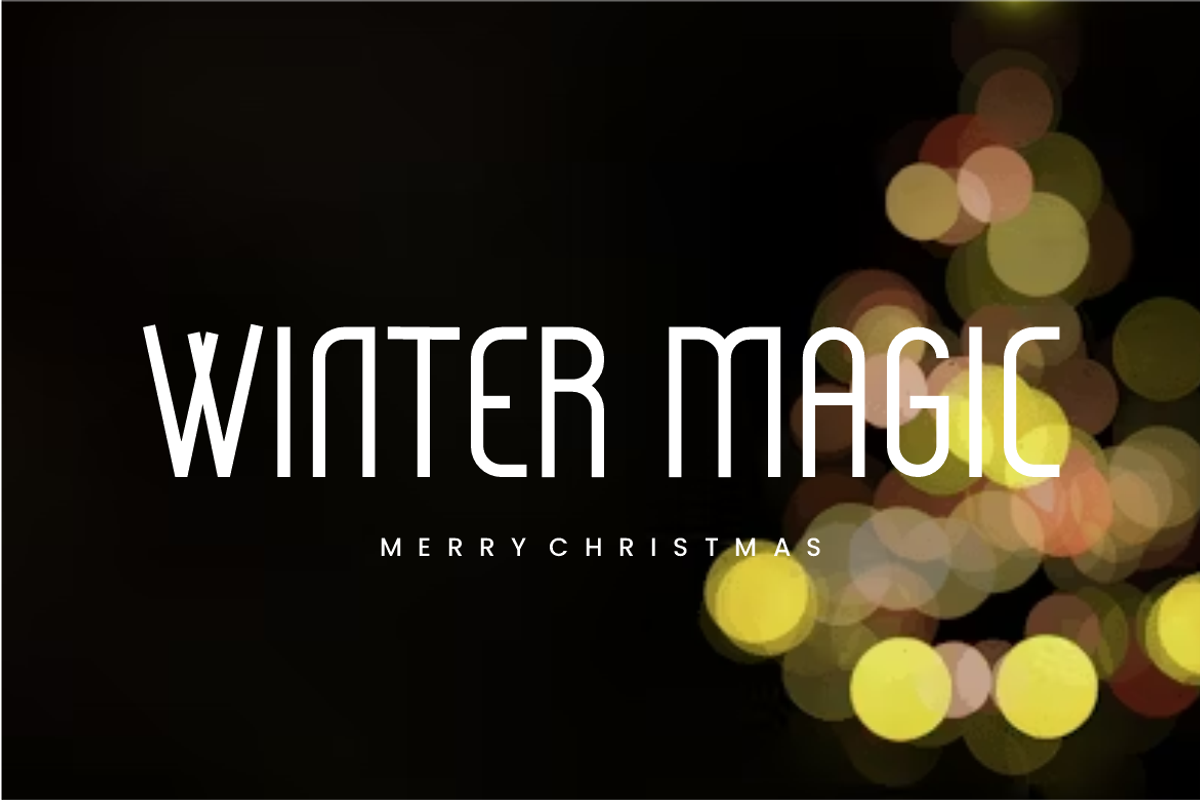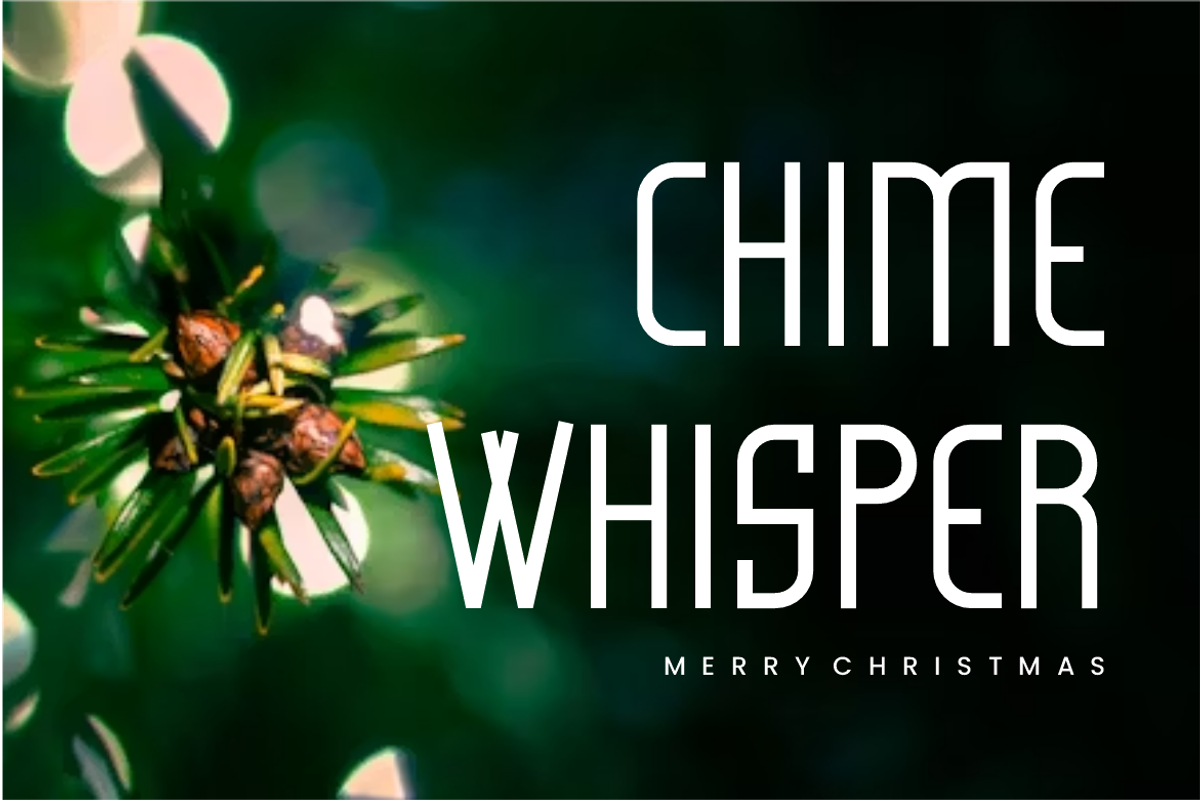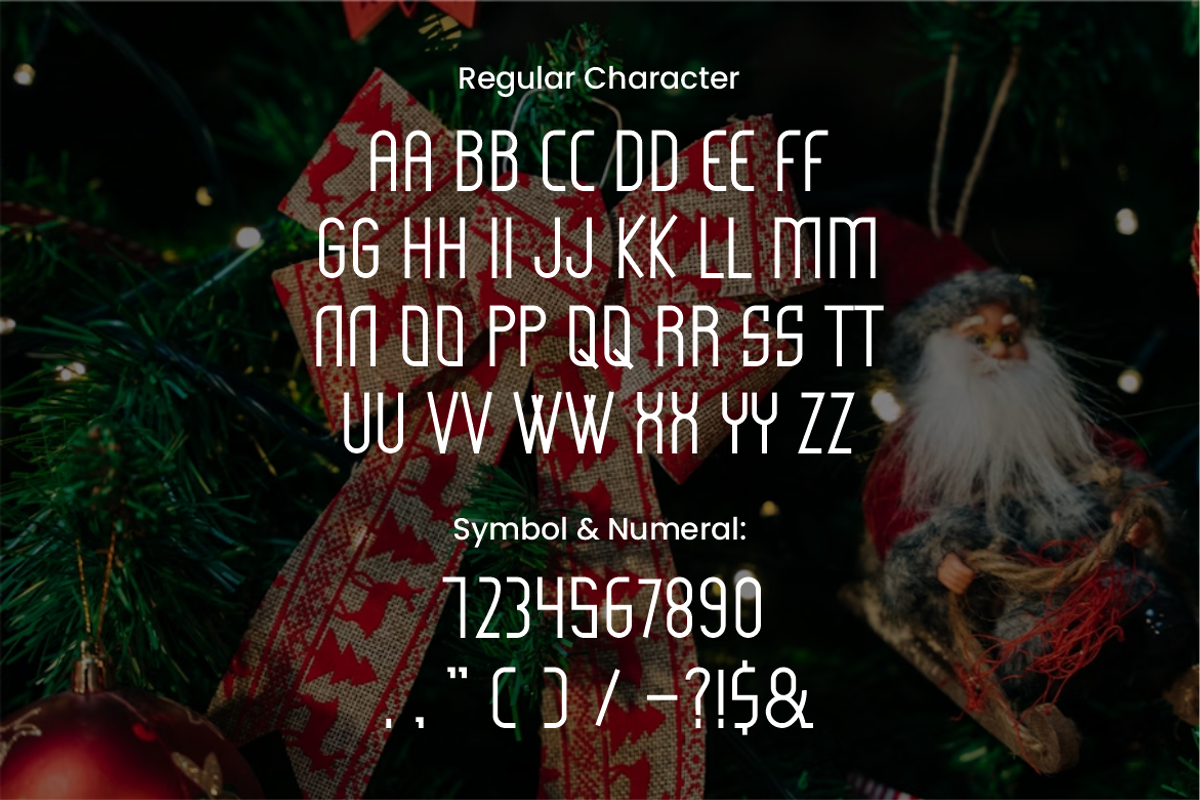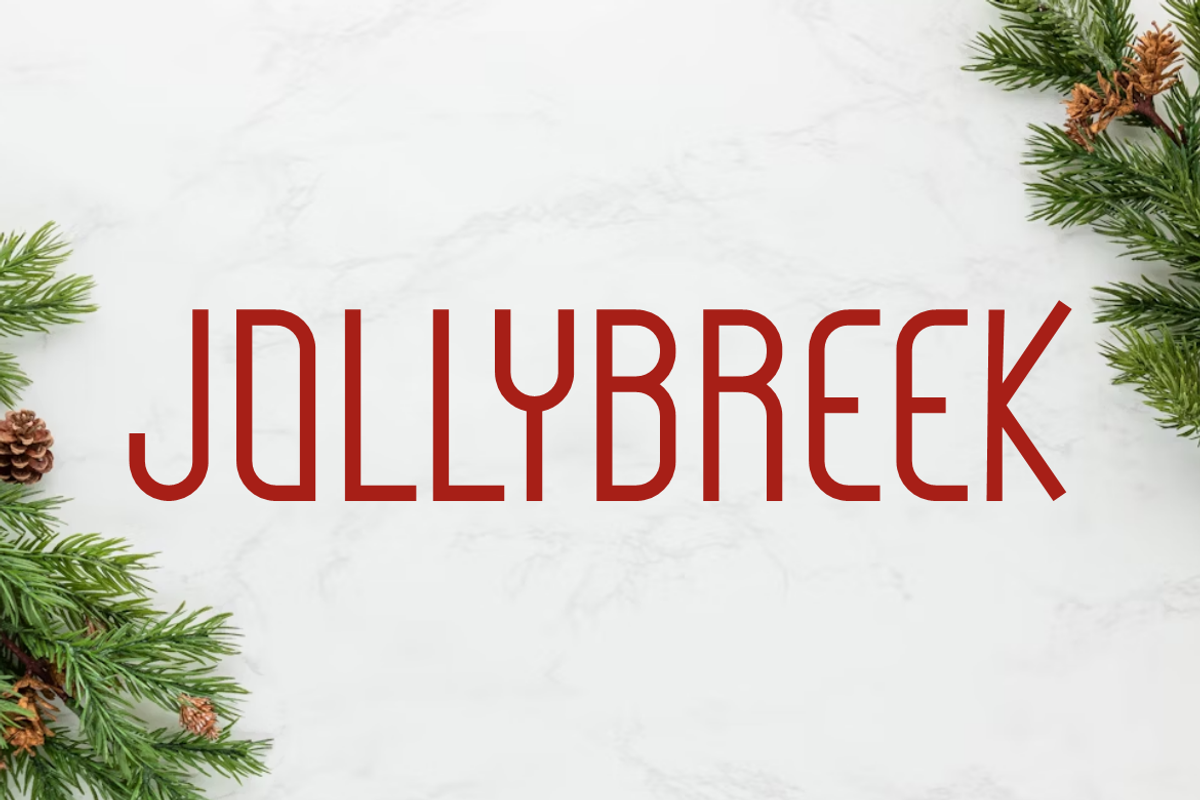
Jollybreek
🎄 Font Description: JOLLYBREEK This font is a decorative, stylized sans-serif that elegantly merges contemporary clean lines with thematic holiday or seasonal elements. It maintains a light, cheerful, and sophisticated appearance, fitting its festive context.